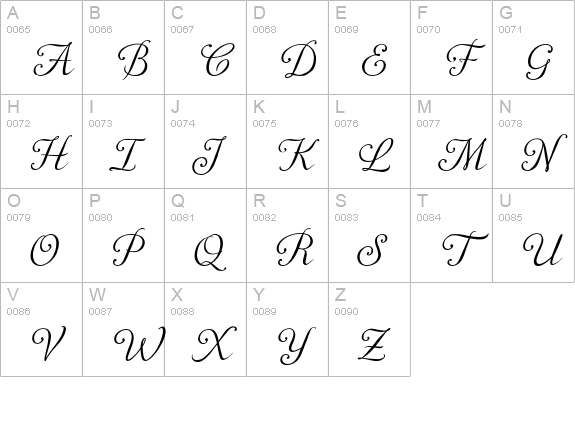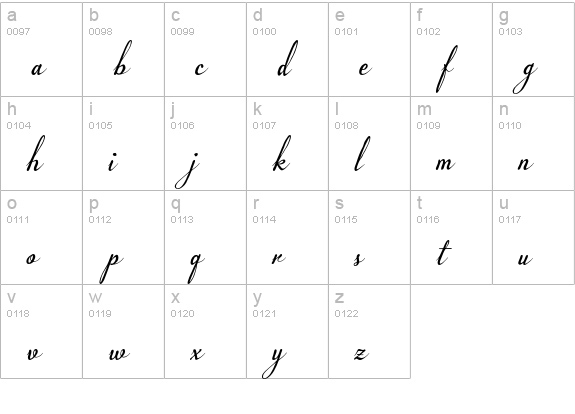
Plebeya font is a versatile and modern typeface that exudes elegance and sophistication. With its clean lines and stylish curves, Plebeya is perfect for a wide range of design projects, from branding to editorial layouts. This font strikes the perfect balance between classic and contemporary, making it suitable for both professional and creative use. What sets Plebeya font apart is not only its timeless design but also the fact that it is available for free download at FontsMarket.com. This means that you can access this high-quality typeface without any cost, making it an excellent choice for designers on a budget or anyone looking to add a touch of class to their projects without breaking the bank. Whether you are working on a logo, website, poster, or any other design project, Plebeya font offers the flexibility and style you need to make your work stand out. Download it for free today and elevate your designs with this elegant and refined typeface.